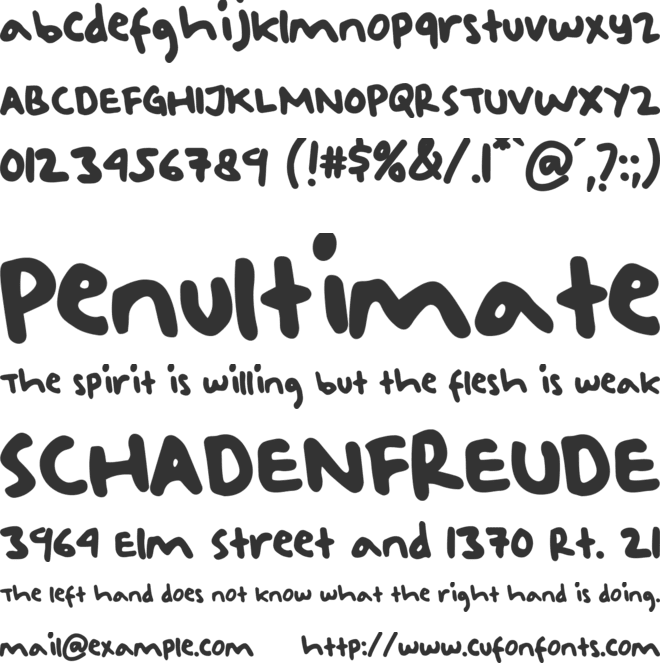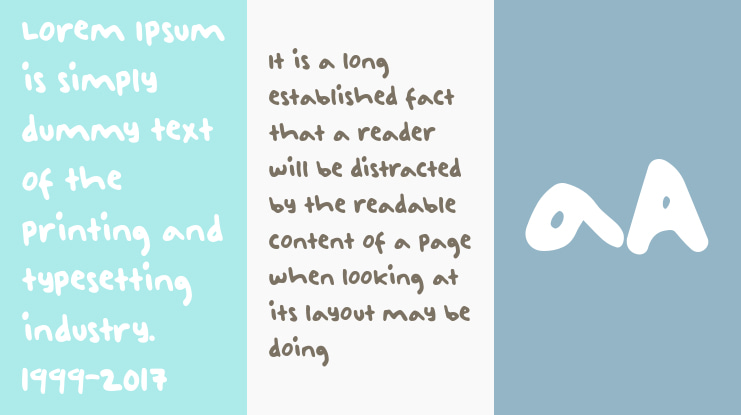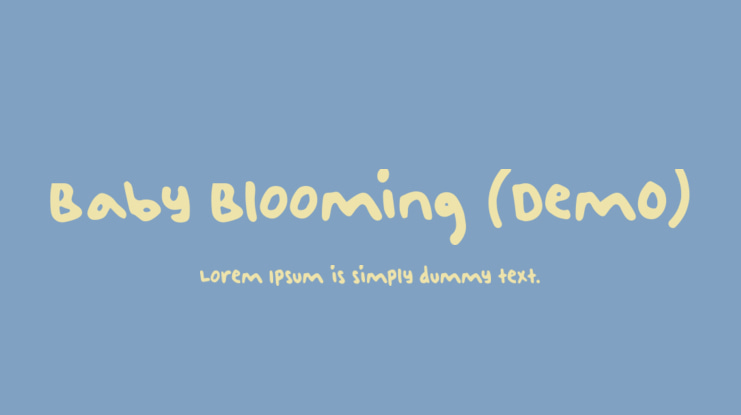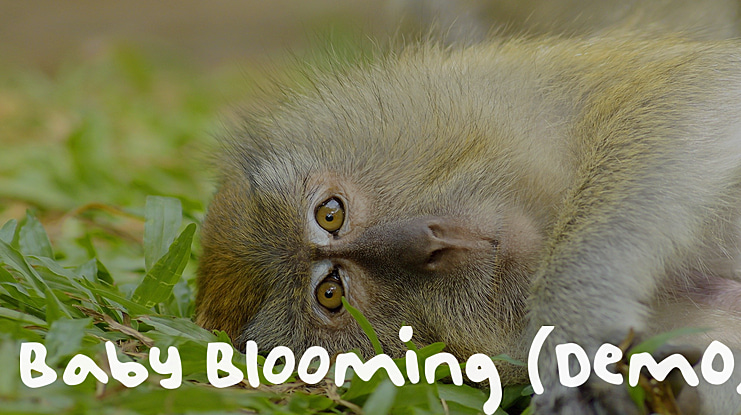
Baby Blooming (Dem0) Font
Wildan Suprian Syah
Hi, Introducing new font ! Baby Blooming is a playfully display font make from handdrawn ideas in typeface. This font includes full of Alphabetical glyphs, Numerals, and punctuation. This is so perfect for invitations, fashion, branding, label, handdrawn or logotype.